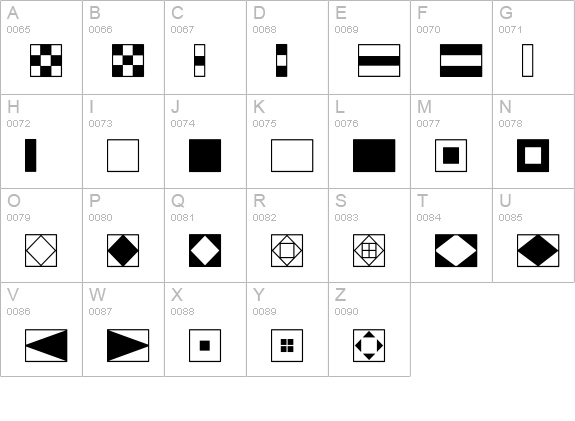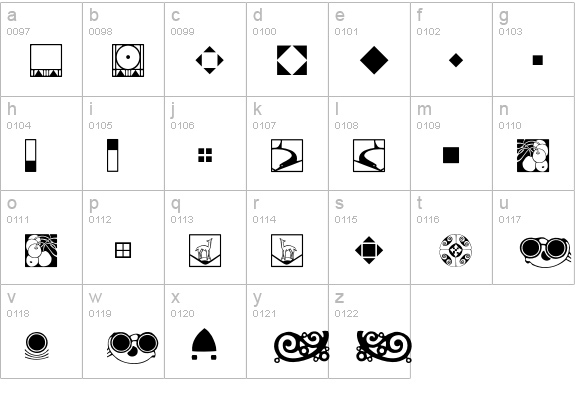
ViennaExtras Font Details
ViennaExtras is a versatile and elegant font that adds a touch of sophistication to any design project. With its clean lines and graceful curves, this font is perfect for creating eye-catching titles, headings, and logos. Its wide range of decorative elements and embellishments make it a valuable asset for designers who want to add a unique and artistic touch to their work. What sets ViennaExtras apart is that it is not only visually stunning, but also completely free to use. This means that designers and creatives of all levels can enjoy the benefits of this stunning font without any cost. You can freely download ViennaExtras at FontsMarket.com, a reputable website dedicated to providing high-quality fonts to design enthusiasts. Whether you're working on a personal project or a professional assignment, ViennaExtras will elevate your design to the next level. Its versatility allows it to be used in various contexts, from elegant invitations and wedding stationery to high-end branding and packaging. With ViennaExtras, you have the freedom to explore your creativity and create visually captivating designs that leave a lasting impression. So why wait? Download ViennaExtras for free at FontsMarket.com and let your imagination run wild. Unleash your design potential with this exquisite font that combines beauty and accessibility in one package. ViennaExtras is the perfect choice for designers who value quality, elegance, and the freedom to create stunning designs without any constraints.